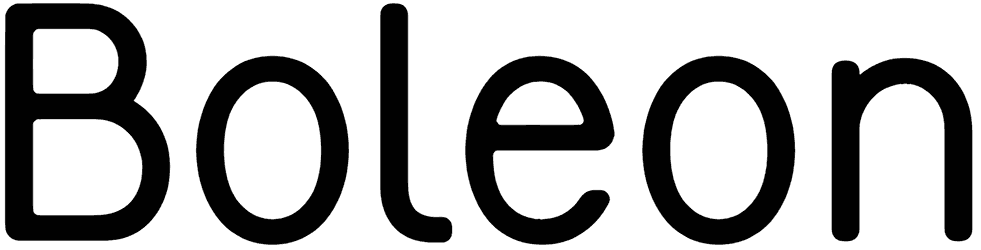
Boleon Font
Because Boleon is such a general-purpose font, many people want to add it to their illustrations. This sans serif font has an adaptable mode that can become one of the critical features in the toolbox of any designer, marketer, or writer for a long time.
The minimal appearance of this rounded font, along with clear and legible letters, has always made it one of the first pioneers of digital design and stands out on websites, advertising banners, and posters.
A clean, rounded sans-serif font with over 270 characters.